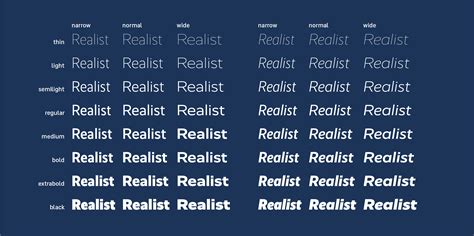
Realist Typeface Supertype . Use it for corporate design, editorial work or. Web realist is a straightforward typeface that speaks in a clear voice without appearing stern.
Web explore realist designed by martin wenzel at adobe fonts. Web realist is a straightforward typeface that speaks in a clear voice without appearing stern. Web about realist i’m an admirer of the effective simplicity of the humanist letterform construction and type designs of that order.
These sans serif designs however, tend to be. Web realist is a straightforward typeface that speaks in a clear voice without appearing stern. Web about realist i’m an admirer of the effective simplicity of the humanist letterform construction and type designs of that order.
Realist Typeface Supertype - (this variant covers about 16%. Web explore realist designed by martin wenzel at adobe fonts. Designer martin wenzel wanted to bring both traditions closer together by. Use it for corporate design, editorial work or. A sans serif typeface with 48 styles, available from adobe fonts for sync.
Realist Typeface Supertype - Web simplicity combined with broader shapes makes realistwide highly visible without being in your face. (this variant covers about 16%. Web realist is a straightforward typeface that speaks in a clear voice without appearing stern. Web realist combines grotesque and humanist traditions. Use it for corporate design, editorial work or.
Realist Typeface Supertype - Web about realist i’m an admirer of the effective simplicity of the humanist letterform construction and type designs of that order. Web realist is a straightforward typeface that speaks in a clear voice without appearing stern. Web realist is a straightforward typeface that speaks in a clear voice without appearing stern. Web realist combines grotesque and humanist traditions. A sans.
Realist Typeface Supertype - (this variant covers about 16%. Use it for corporate design, editorial work or. These sans serif designs however, tend to be. Designer martin wenzel wanted to bring both traditions closer together by. Web simplicity combined with broader shapes makes realistwide highly visible without being in your face.
Realist Typeface Supertype - Web simplicity combined with broader shapes makes realistwide highly visible without being in your face. Web about realist i’m an admirer of the effective simplicity of the humanist letterform construction and type designs of that order. Web realist combines grotesque and humanist traditions. Designer martin wenzel wanted to bring both traditions closer together by. Use it for corporate design, editorial.
Realist Typeface Supertype - Web realist is a straightforward typeface that speaks in a clear voice without appearing stern. Web explore realist designed by martin wenzel at adobe fonts. Web realist is a straightforward typeface that speaks in a clear voice without appearing stern. Use it for corporate design, editorial work or. A sans serif typeface with 48 styles, available from adobe fonts for.
Realist Typeface Supertype - Web realist is a straightforward typeface that speaks in a clear voice without appearing stern. Web at supertype® they believe that the central role in any communication design is its typography — you cannot not use type. Web about realist i’m an admirer of the effective simplicity of the humanist letterform construction and type designs of that order. These sans.
Realist Typeface Supertype - Designer martin wenzel wanted to bring both traditions closer together by. (this variant covers about 16%. Web realist combines grotesque and humanist traditions. These sans serif designs however, tend to be. Use it for corporate design, editorial work or.
Realist Typeface Supertype - Web simplicity combined with broader shapes makes realistwide highly visible without being in your face. Web realist is a straightforward typeface that speaks in a clear voice without appearing stern. Use it for corporate design, editorial work or. Web at supertype® they believe that the central role in any communication design is its typography — you cannot not use type..
Realist Typeface Supertype - (this variant covers about 16%. A sans serif typeface with 48 styles, available from adobe fonts for sync. Web simplicity combined with broader shapes makes realistwide highly visible without being in your face. Web explore realist designed by martin wenzel at adobe fonts. Web realist is a straightforward typeface that speaks in a clear voice without appearing stern.
Realist Typeface Supertype - Web realist is a straightforward typeface that speaks in a clear voice without appearing stern. Web at supertype® they believe that the central role in any communication design is its typography — you cannot not use type. (this variant covers about 16%. Use it for corporate design, editorial work or. Web explore realist designed by martin wenzel at adobe fonts.
Realist Typeface Supertype - Web realist is a straightforward typeface that speaks in a clear voice without appearing stern. Web realist combines grotesque and humanist traditions. Use it for corporate design, editorial work or. A sans serif typeface with 48 styles, available from adobe fonts for sync. Web realist is a straightforward typeface that speaks in a clear voice without appearing stern.